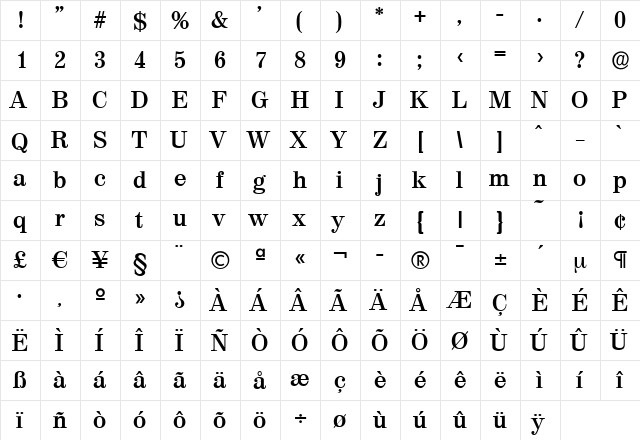
NormanBecker Bold
Design Context for NormanBecker Typeface
NormanBecker offers clean, dependable letterforms without strong stylistic allegiance, making it a practical choice for designers who need flexibility. Its bold stroke weight gives it real presence on the page.